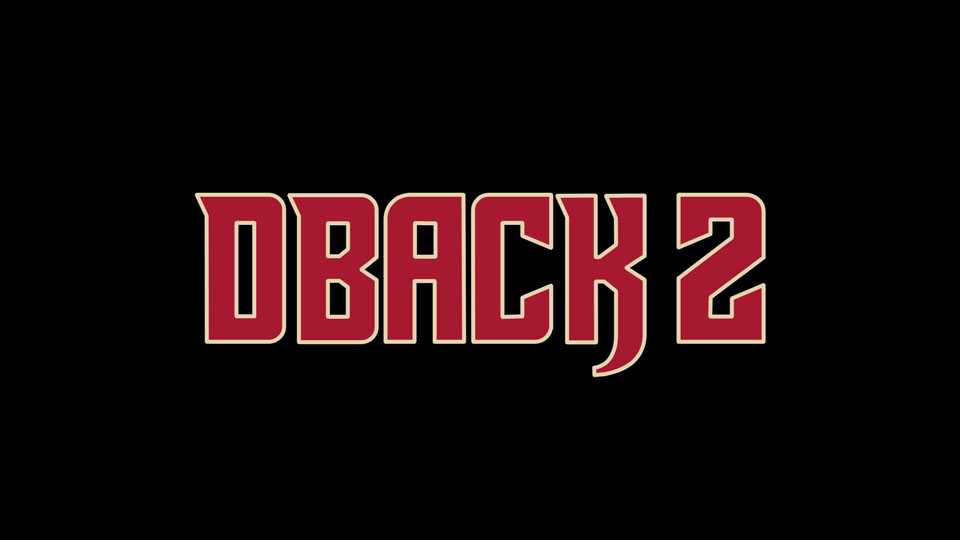
Download Dback 2 font, a dynamic display typeface inspired by the bold and distinctive uniform of the Arizona Diamondbacks. It features sharp, angular letterforms with a sleek and modern design
Designer: Rob Hindley